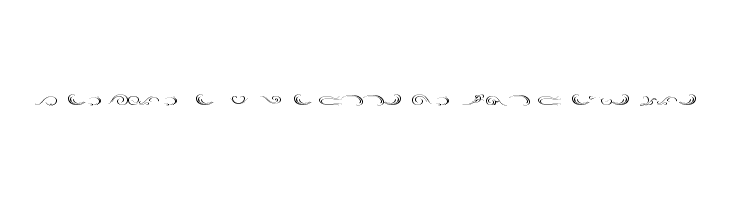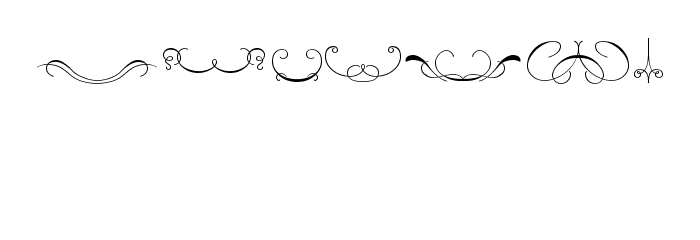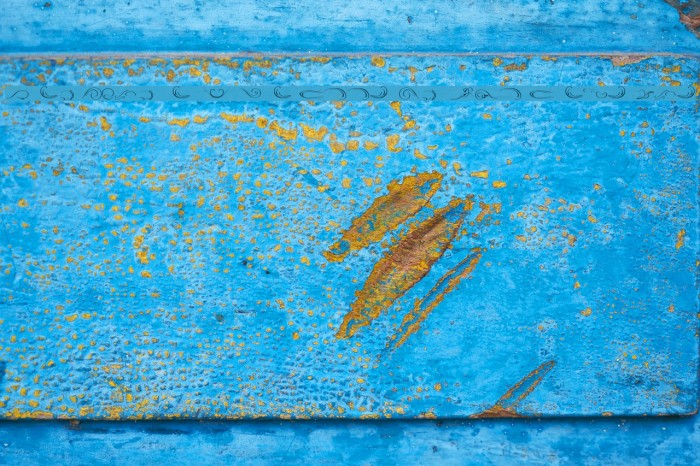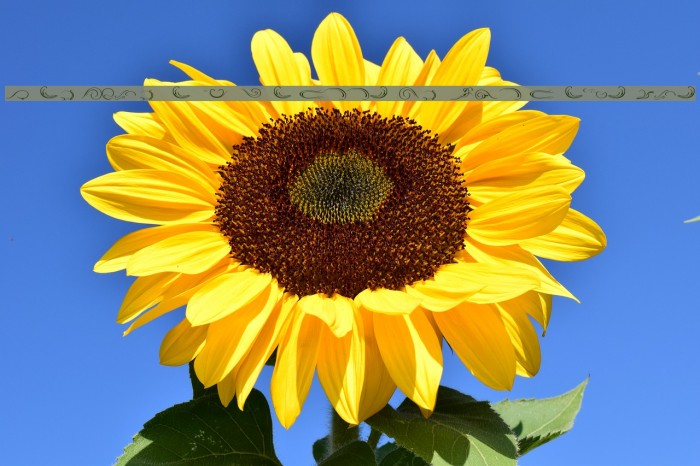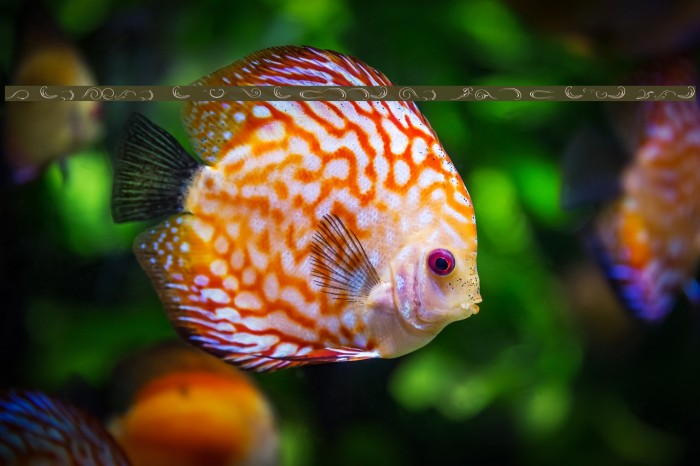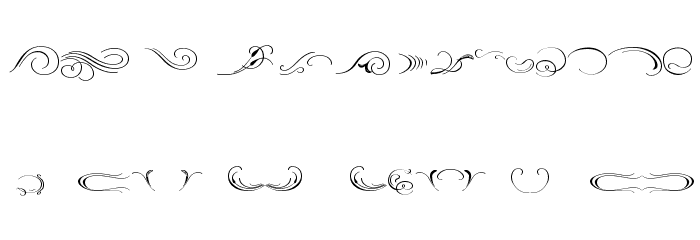
Ornament ScrollsAndFlorishes Font
Ornament ScrollsAndFlorishes Description
A collection of highly decorative scrolls and flourishes with intricate, flowing lines and ornamental curves, designed as embellishments rather than standard letterforms or numerals.
Ornamental scrolls and flourishes for decorative accents from Uncategorized fonts.
- Proposed Projects: Wedding invitations, certificates, vintage posters, decorative borders, branding, packaging, greeting cards.
- Overall Style: Decorative, Vintage, Elegant
- Use Case: Ornamental accents, borders, dividers, embellishments